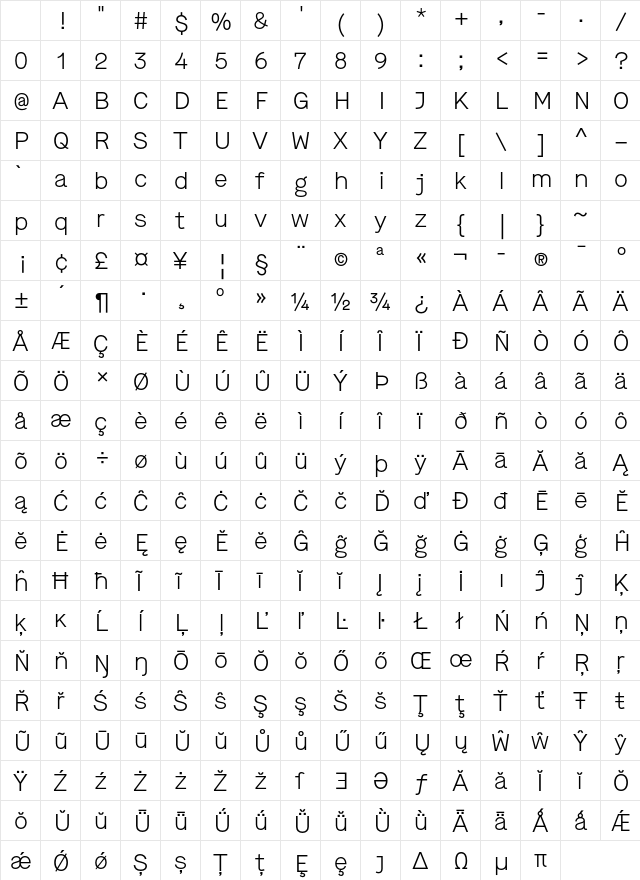
Maison Light is a composed and adaptable typeface that performs quietly and consistently across a wide range of design contexts. Its slender proportions lend an understated elegance to any composition.